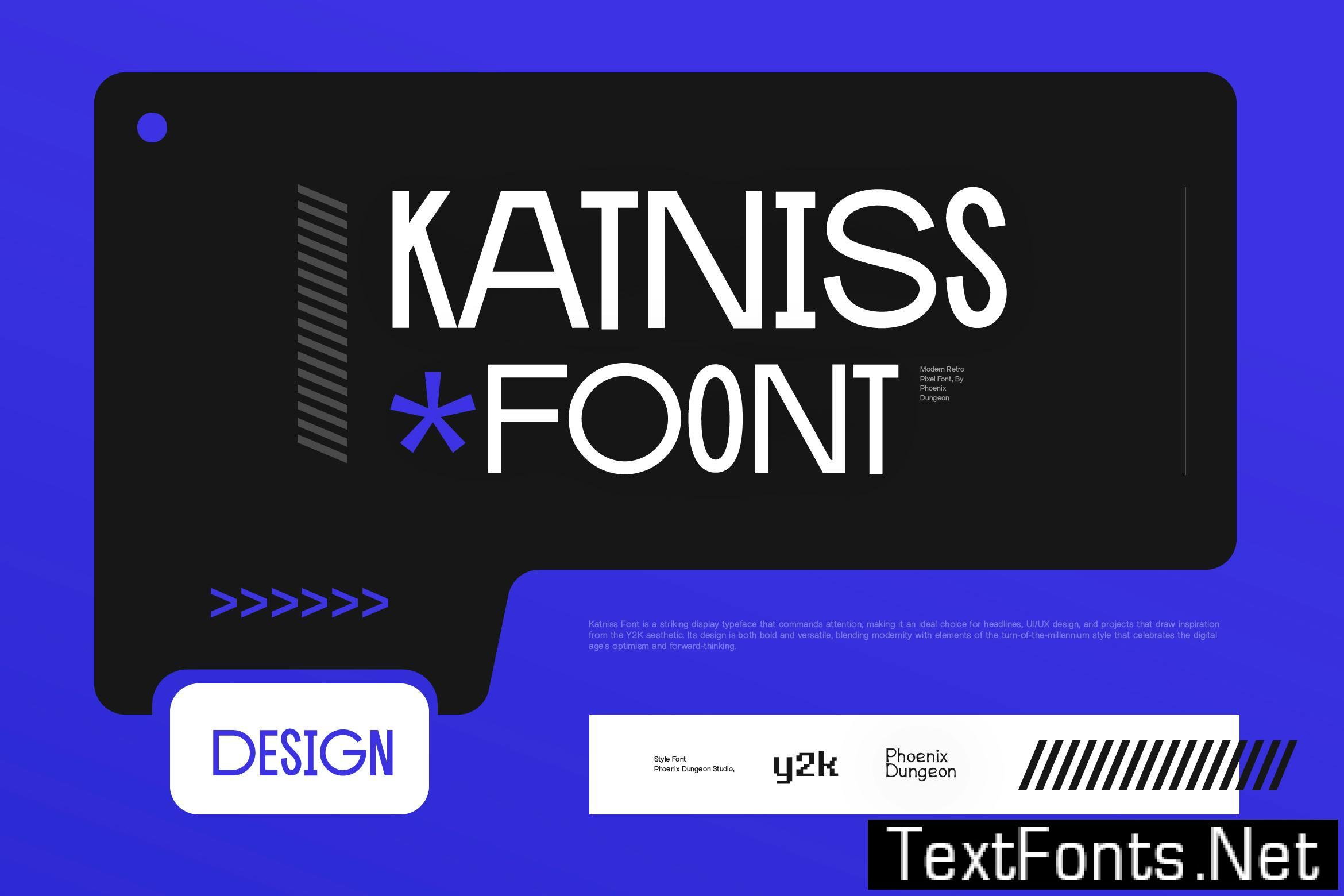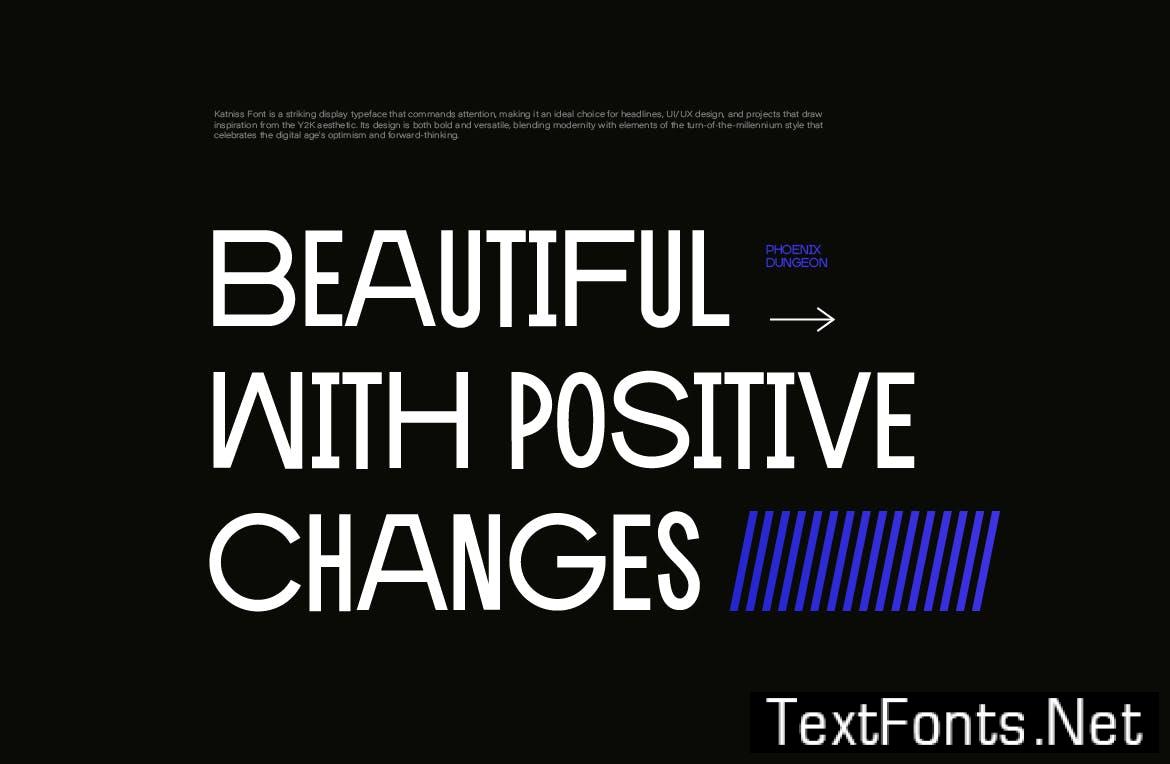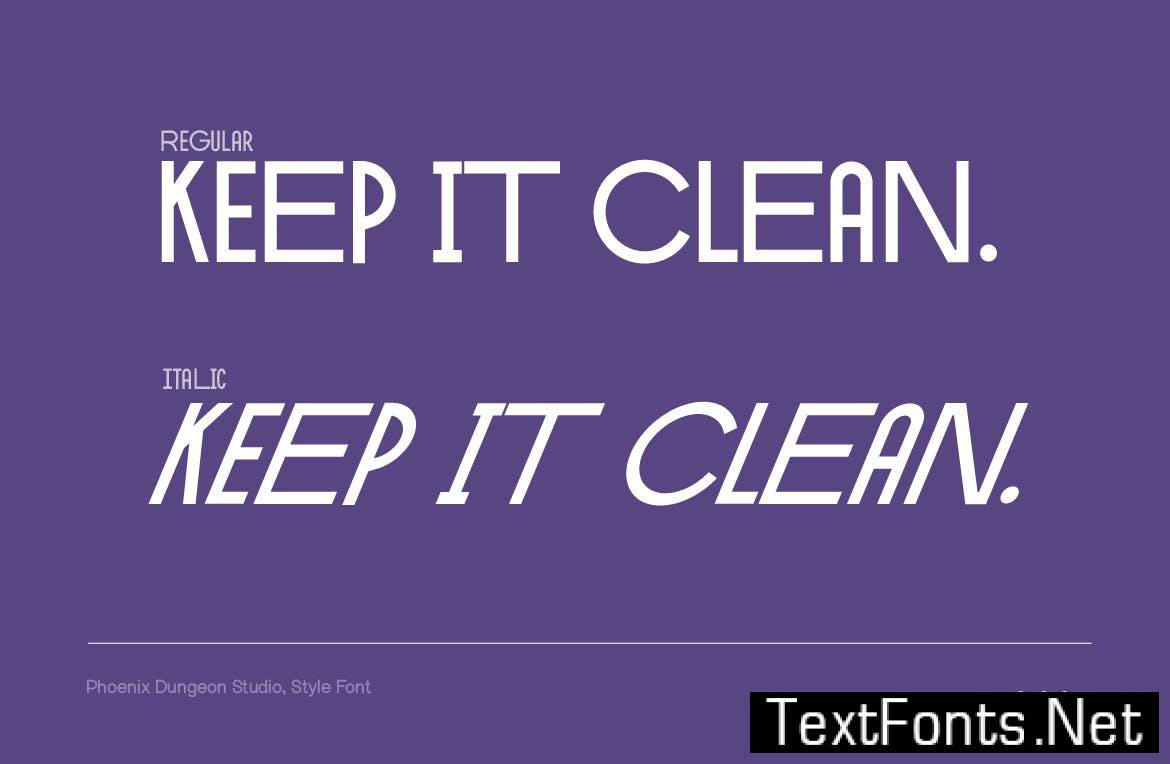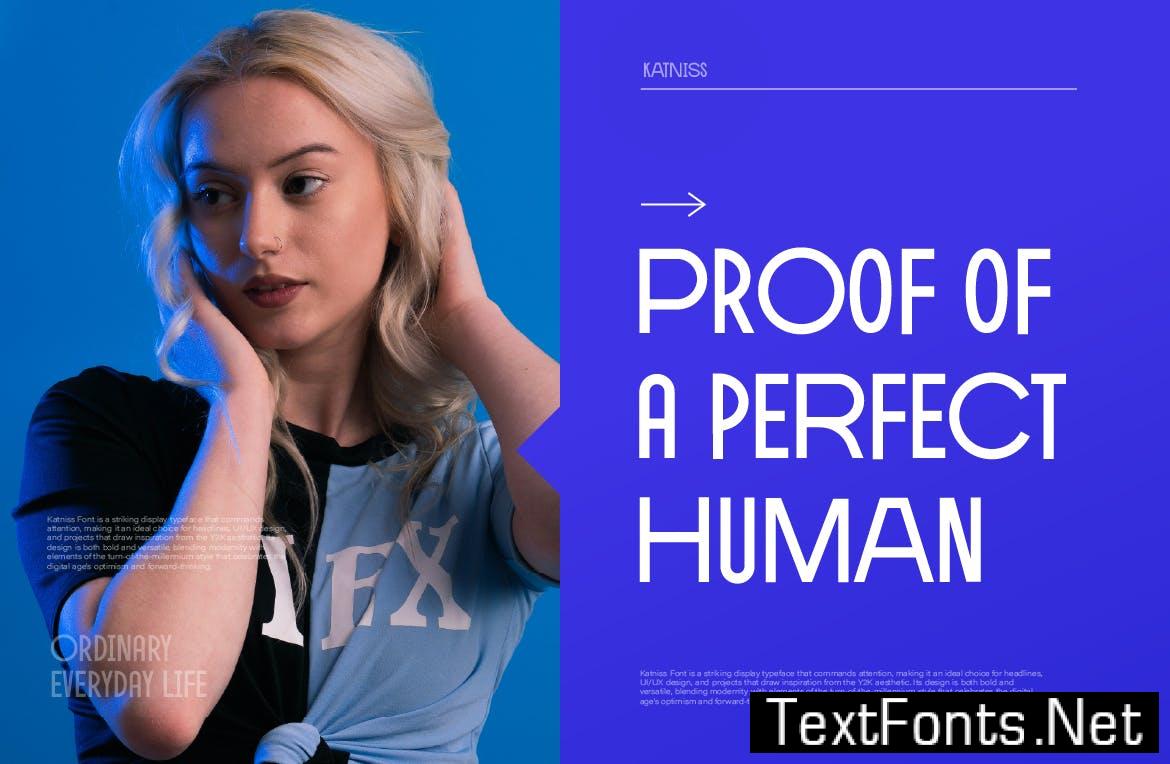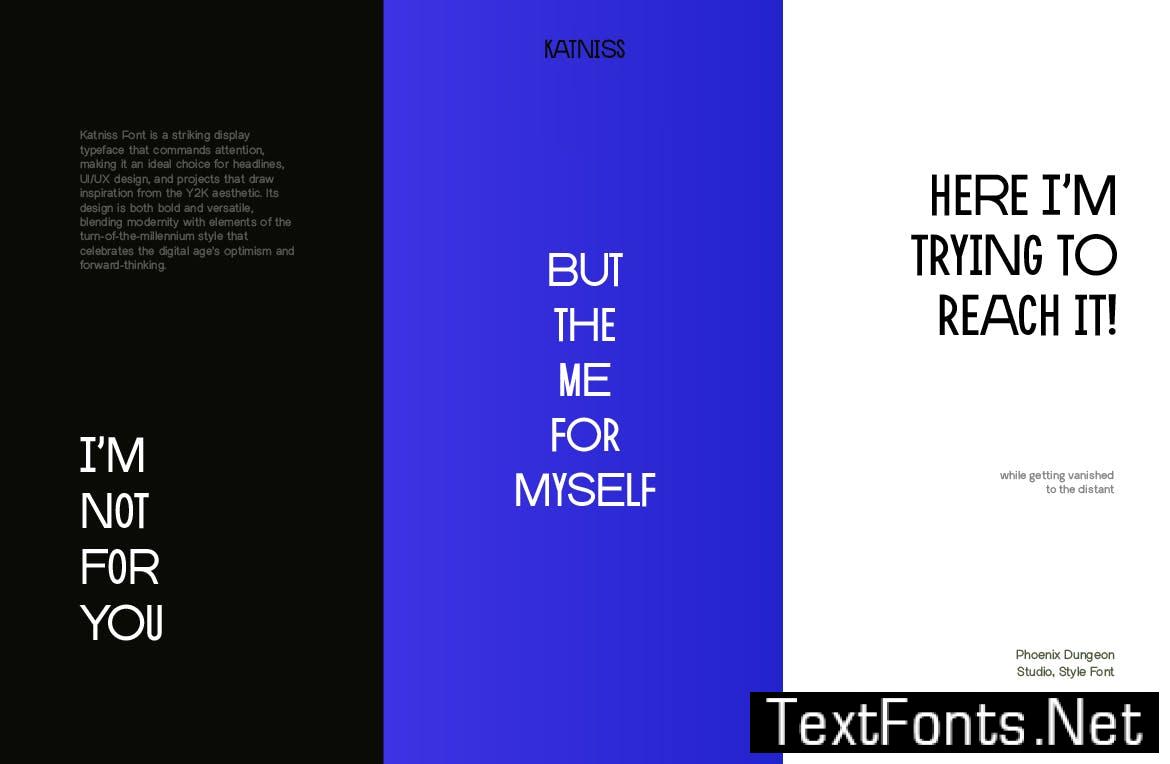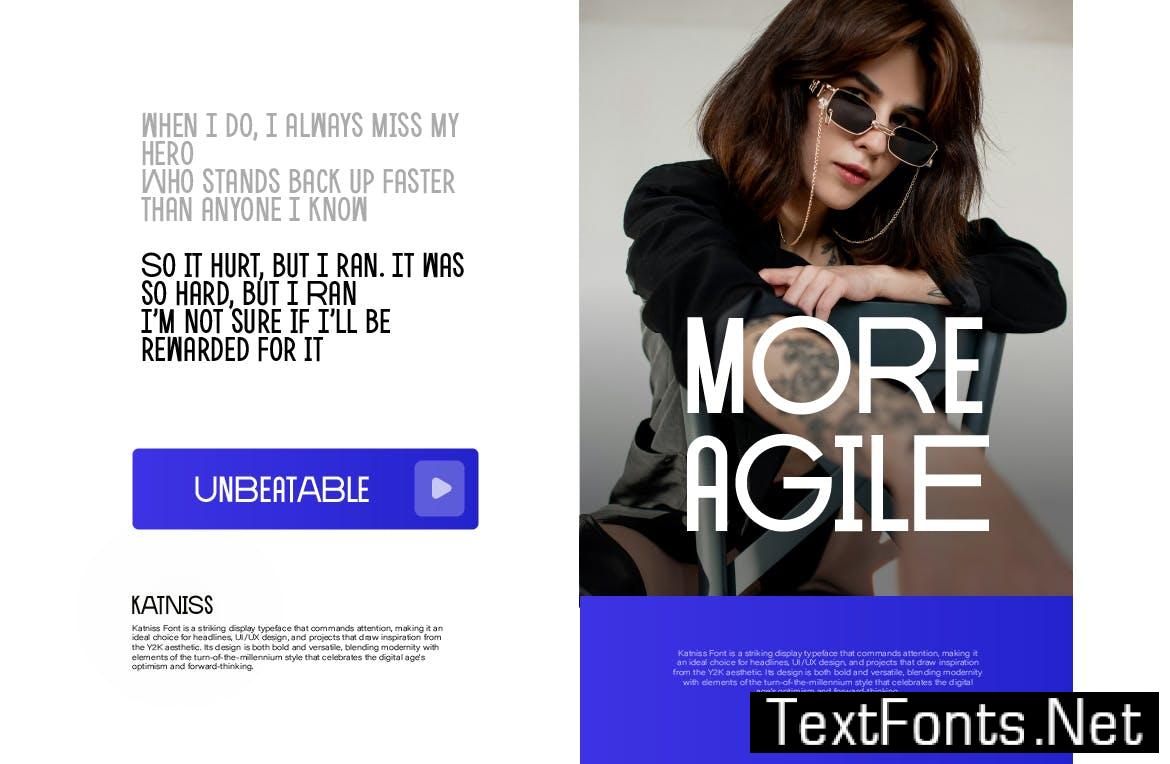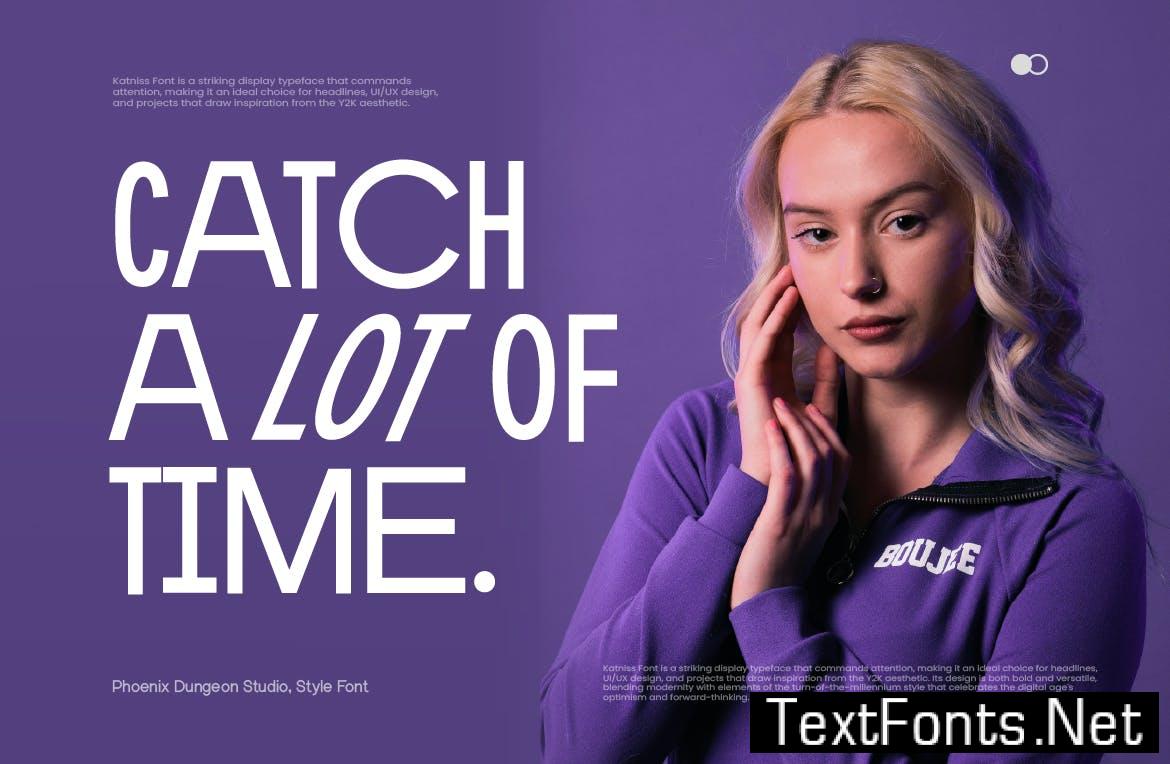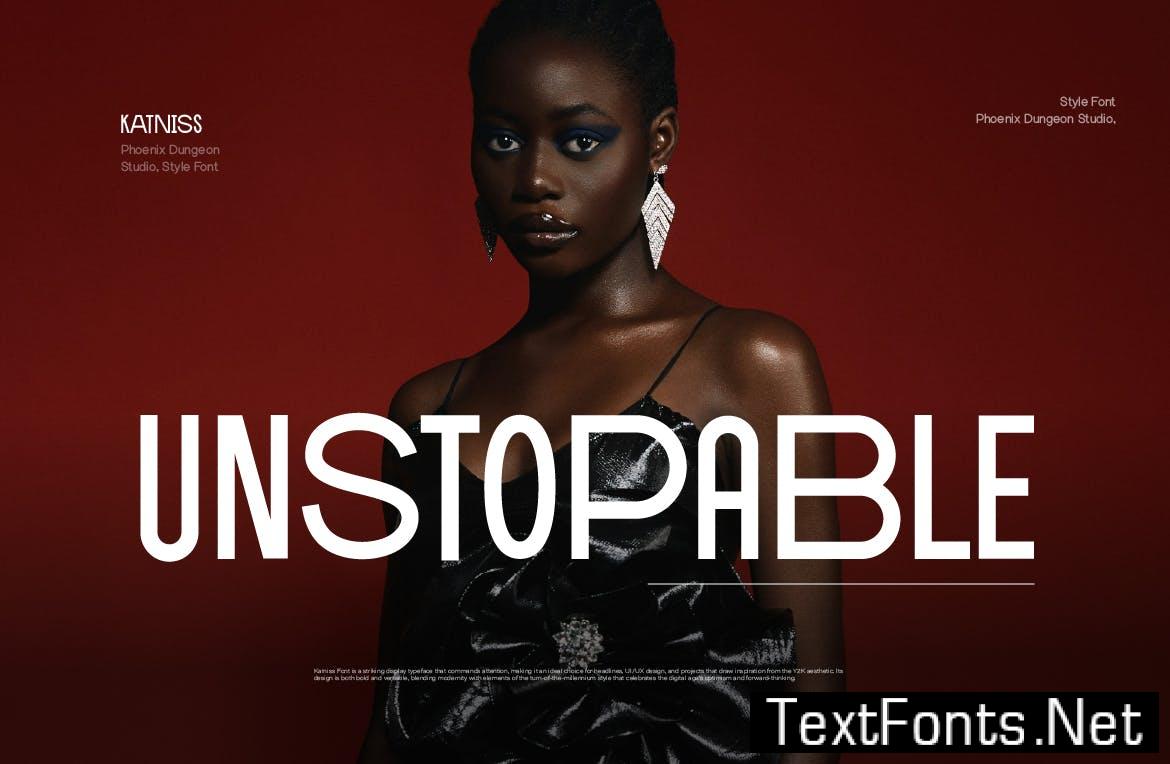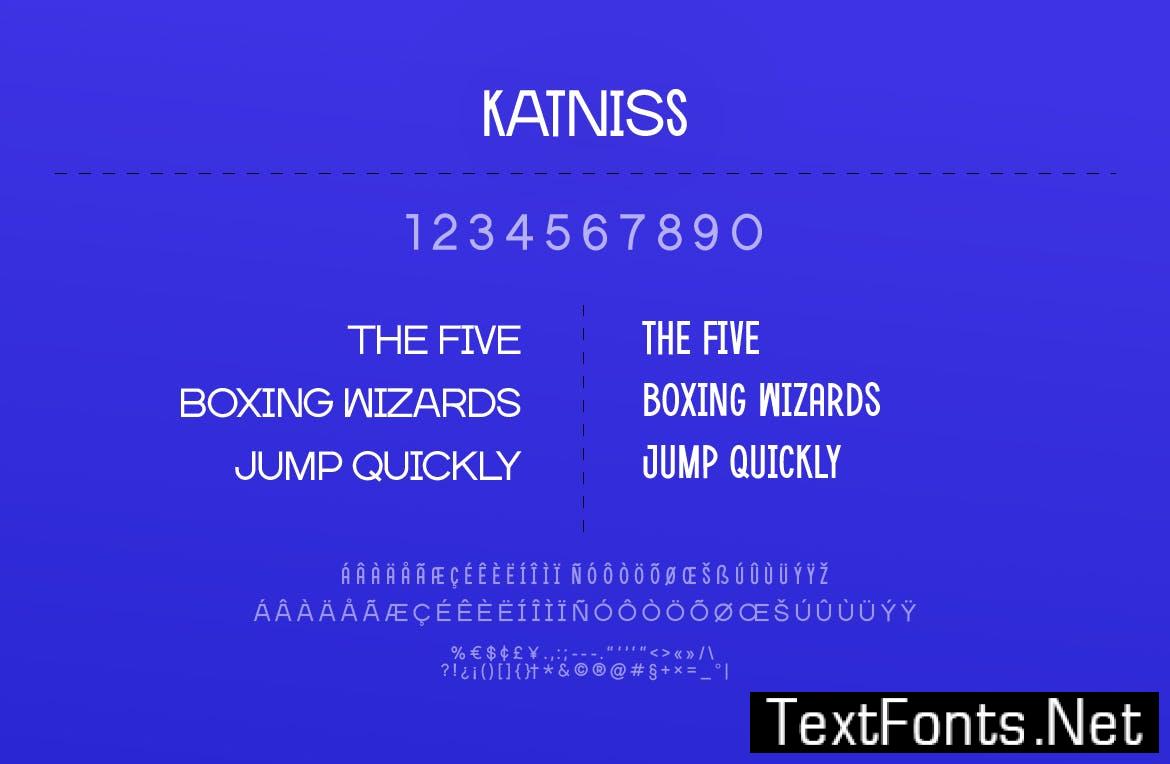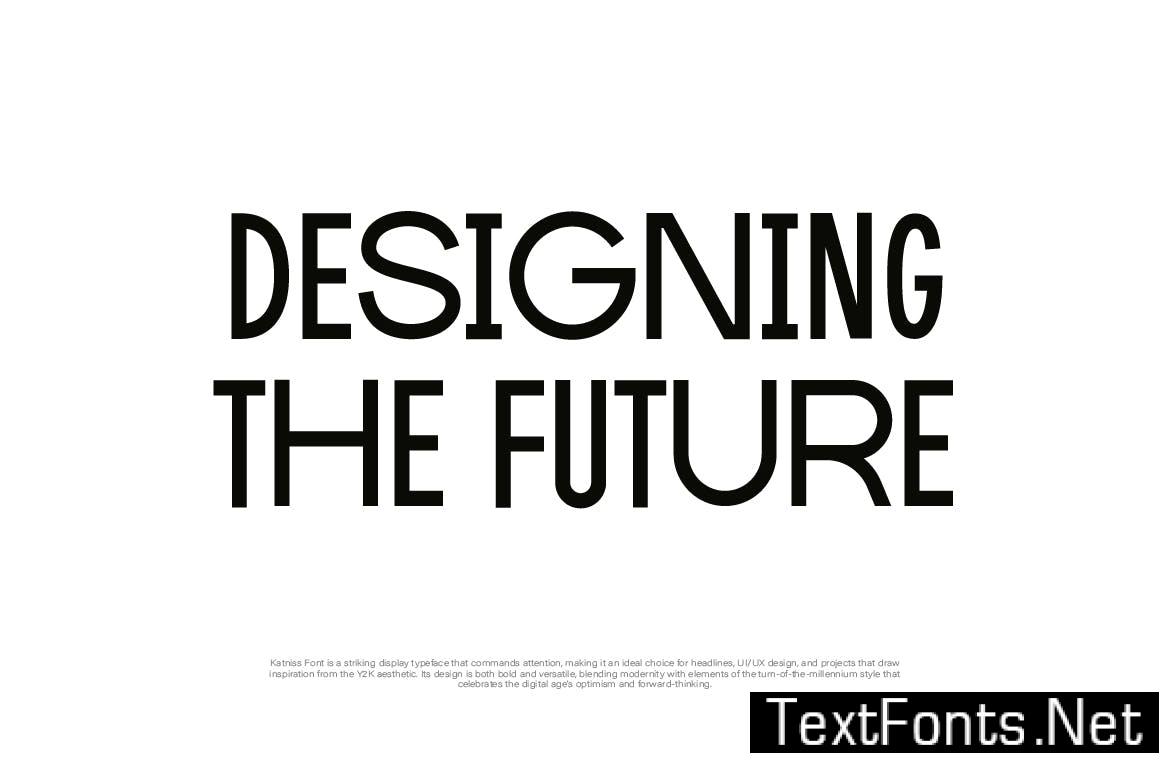
Katniss Font U4J5LV8
**Katniss** Font is a striking display typeface that commands attention, making it an ideal choice for headlines, UI/UX design, and projects that draw inspiration from the Y2K aesthetic. Its design is both bold and versatile, blending modernity with elements of the turn-of-the-millennium style that celebrates the digital age’s optimism and forward-thinking.